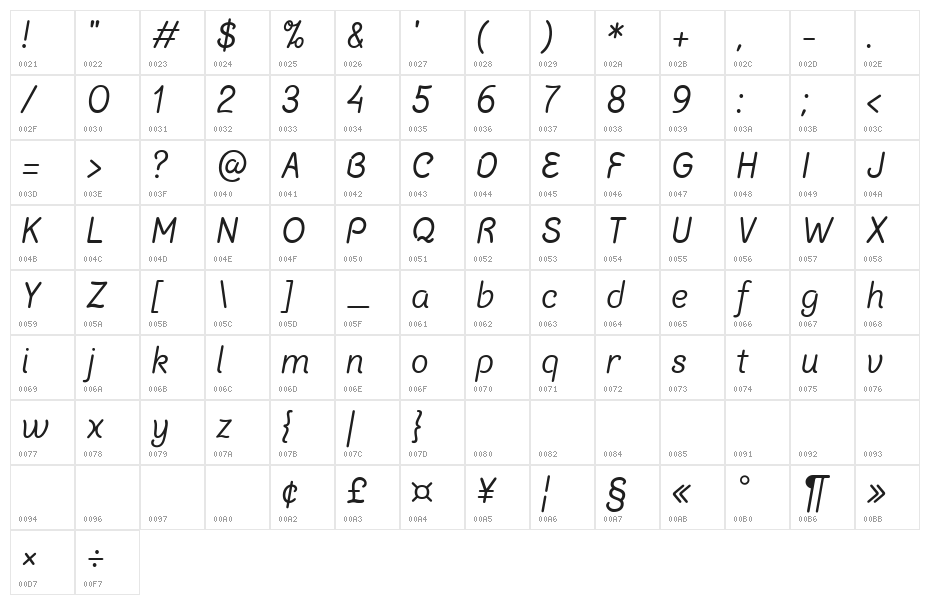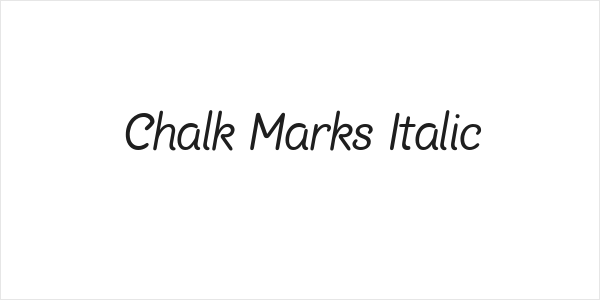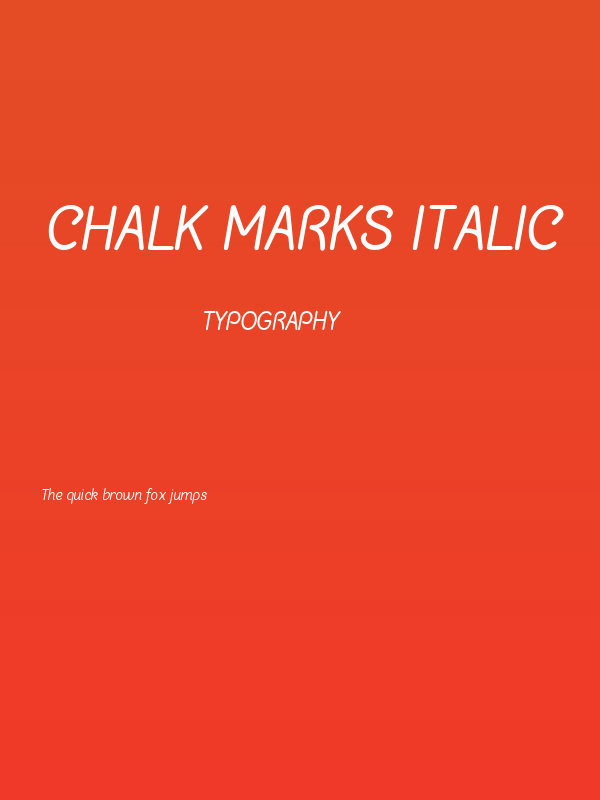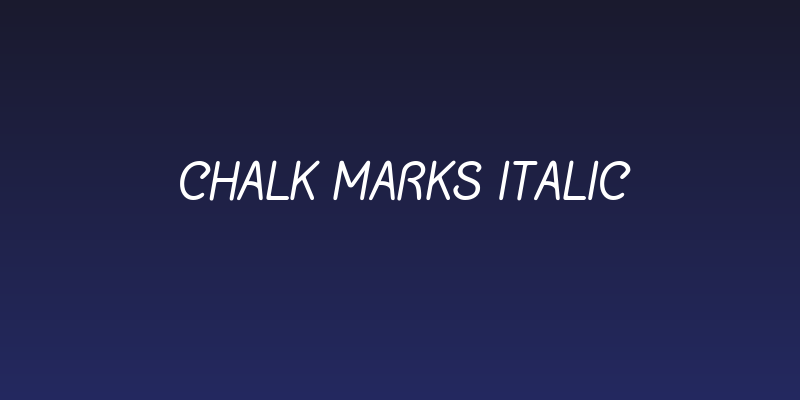
Chalk Marks Italic Font
Chalk Marks Italic Description
This font features a playful and informal style, reminiscent of chalk writing on a blackboard. The letters are slightly slanted, giving it an italic appearance, and the strokes are smooth and rounded, adding to its casual and friendly feel. The characters are well-spaced, ensuring readability while maintaining a cohesive look. The font includes a full set of uppercase and lowercase letters, numbers, and a variety of special characters, making it versatile for different uses. Its unique style is perfect for projects that require a touch of whimsy and creativity.
| Use Case | Headlines, Posters, Educational Materials |
| Proposed Projects | Ideal for educational materials, children's books, playful branding, and creative posters. |